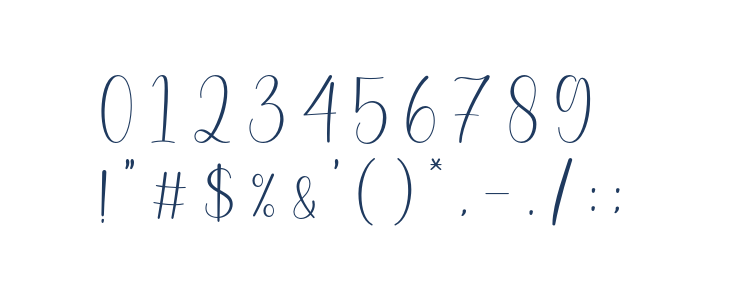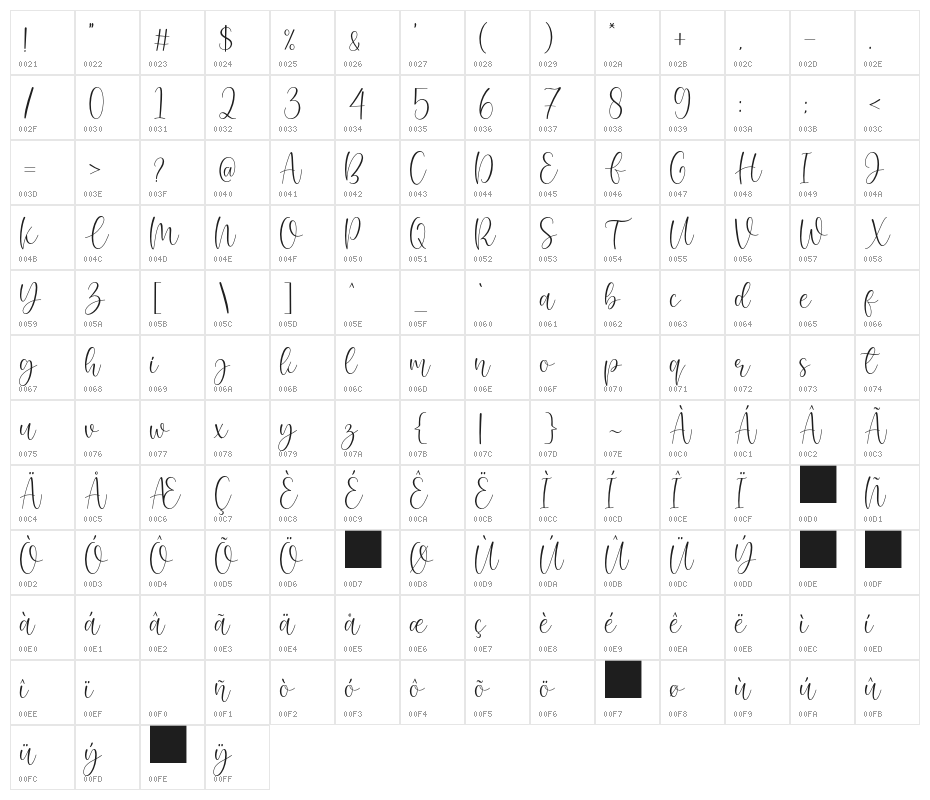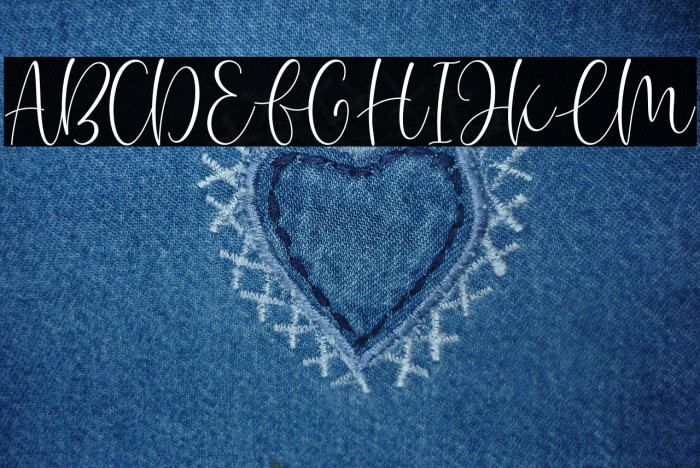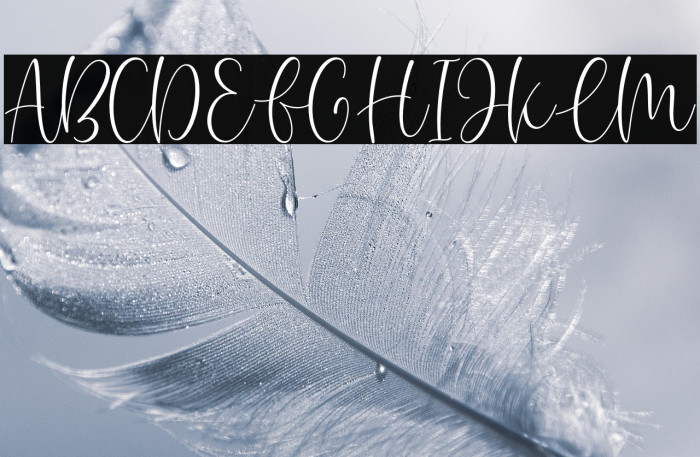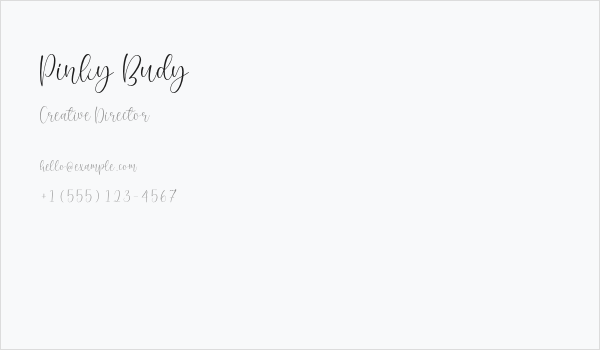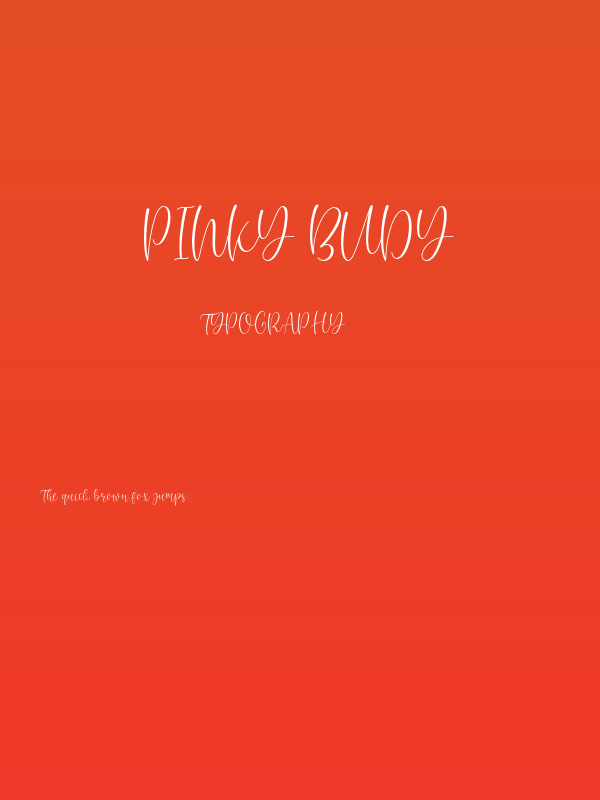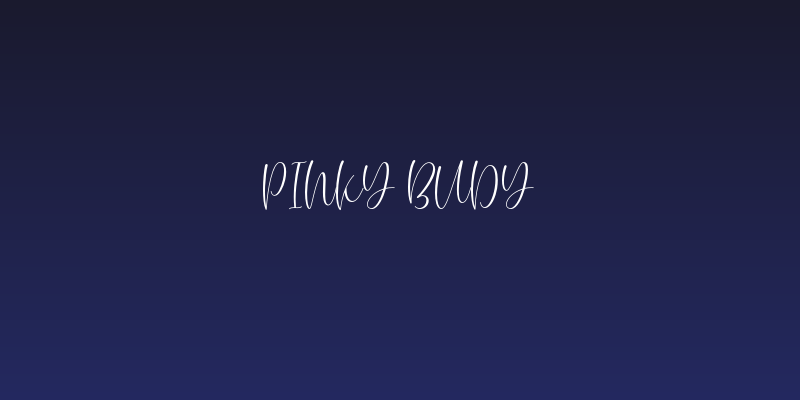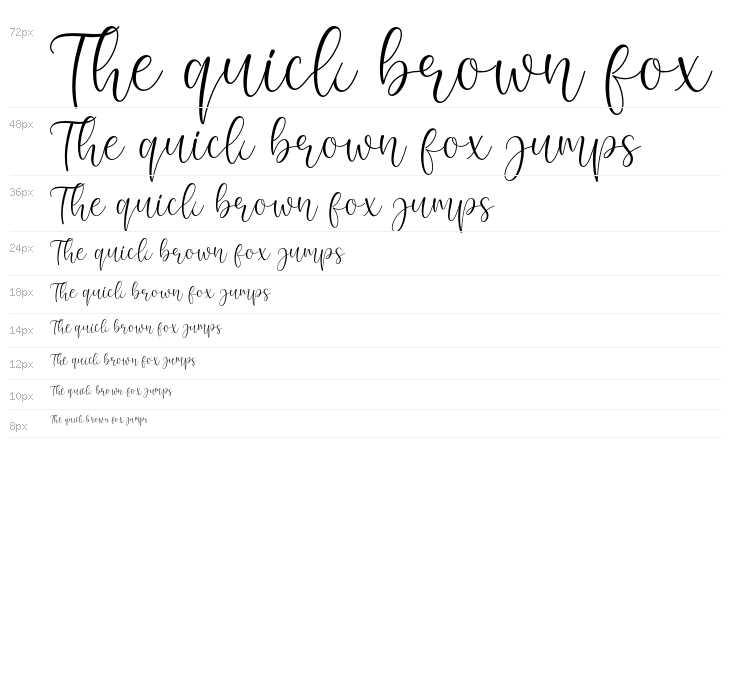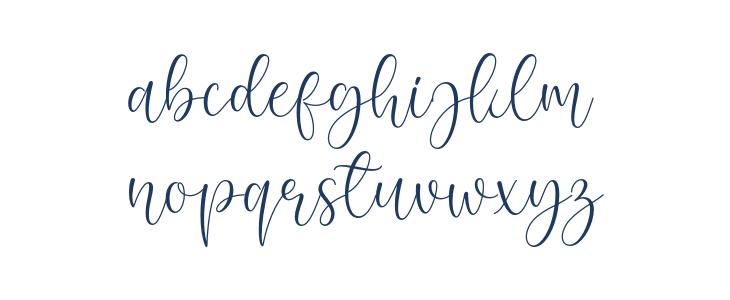
Pinky Budy Font
Pinky Budy Description
This font features a playful and elegant script style, characterized by its flowing, cursive letters that convey a sense of movement and grace. The uppercase letters are tall and slender, with loops and swirls that add a whimsical touch. The lowercase letters maintain a consistent style, with smooth curves and a slightly informal appearance. Numbers are designed with the same fluidity, ensuring a cohesive look across all characters. Special characters are thoughtfully integrated, maintaining the font's overall aesthetic. The font's delicate strokes and artistic flair make it ideal for creative projects.
| Proposed Projects | Ideal for wedding invitations, greeting cards, branding, and decorative projects. |